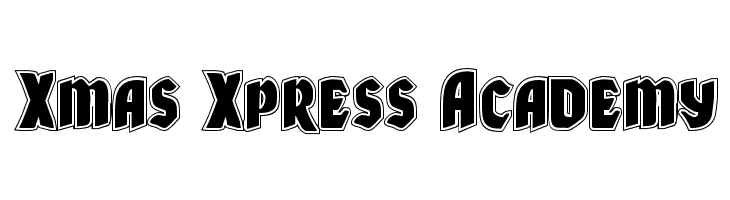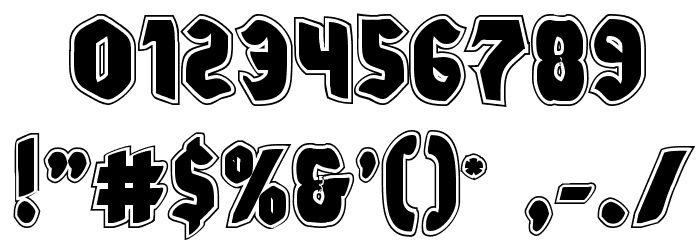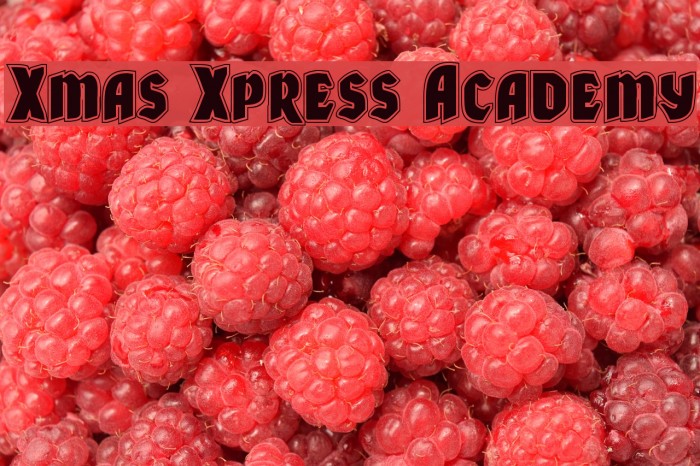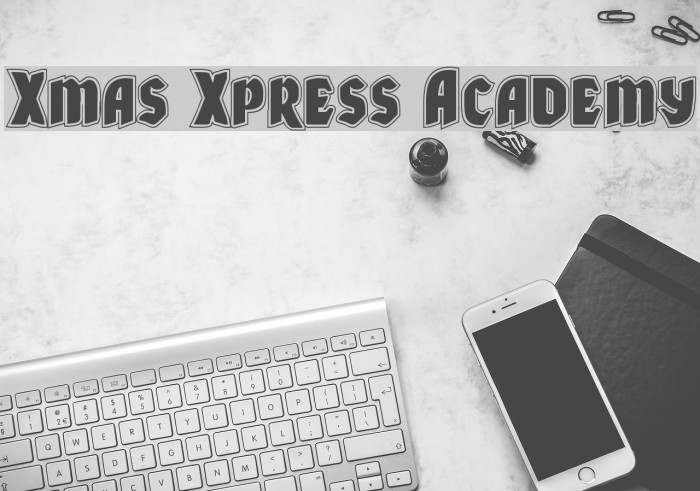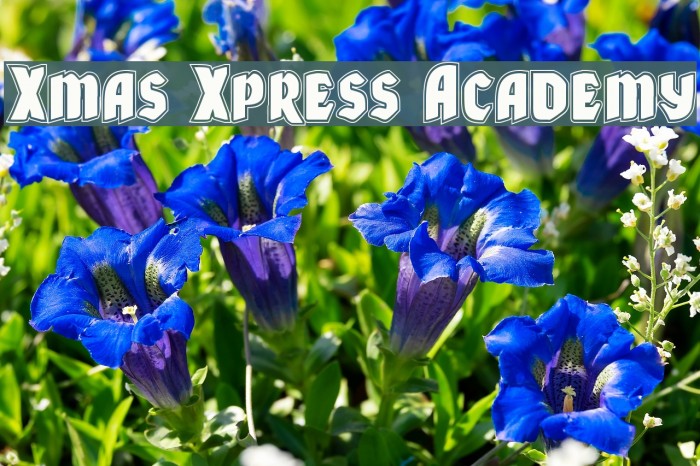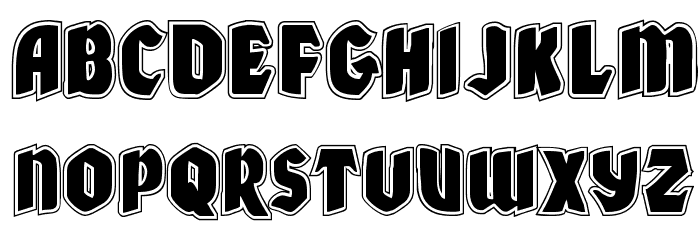
Xmas Xpress Academy Font
This font features a bold and playful design with a strong outline that gives each character a three-dimensional effect. The uppercase and lowercase letters are consistent in style, with rounded edges and a slightly condensed form. The numbers and special characters maintain the same boldness and outline, ensuring uniformity across all glyphs. The font's unique style is eye-catching and ideal for creating a festive or whimsical atmosphere. Its bold presence makes it suitable for designs that require a strong visual impact.
A bold, outlined font with a playful and festive style.
• Proposed Projects: Ideal for holiday-themed designs, children's book covers, party invitations, and playful branding projects.
• Category: Decorative/Display
• Bold: Yes
• Italic: No
• Weight: Bold
• Width: Condensed
• Character Spacing: Normal
• Contrast: High
• Overall Style: Decorative
• Use Case: Headlines, Logos